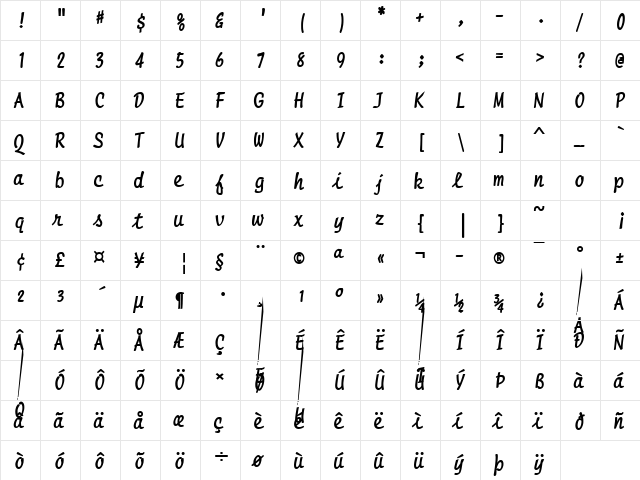
Manuscript Condensed Bold Font Preview
Manuscript Condensed Bold
Design Context for Manuscript Condensed Typeface
Manuscript Condensed flows with the natural rhythm of handwritten lettering, making it ideal for designs that call for warmth and personal expression. The heavy weight commands attention and anchors typographic hierarchies.
Font Pairing: Combine Manuscript Condensed with a simple geometric sans for maximum contrast — the tension between flowing curves and clean structure is a classic typographic pairing.
Pro Tip: Use Manuscript Condensed for short runs of text — names, titles, or taglines. Extended body copy in script faces tires the eye quickly.